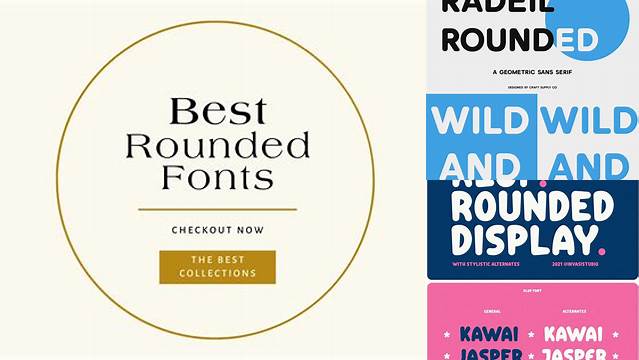
Rounded Free Fonts: Your Guide To Friendly Design
Are you, designers, on the hunt for the perfect fonts to add a touch of warmth, friendliness, and approachability to your projects? Look no further! Rounded free fonts are the unsung heroes of the design world, offering a delightful blend of style and readability. From websites to logos, and everything in between, these fonts can instantly elevate your visual communication. In this comprehensive guide, we'll dive deep into the world of rounded fonts, exploring their benefits, showcasing some of the best free options available, and offering tips on how to use them effectively. So, let's get started and unlock the potential of these versatile font styles, shall we?
The Allure of Rounded Fonts: Why Choose Them?
Rounded fonts are characterized by their soft, curved letterforms, as the name suggests. Unlike their sharp-edged counterparts, these fonts create a sense of comfort and ease for the viewer. This makes them ideal for a wide range of applications, from branding to user interface design. Think about it: what kind of message do you want to send? A bold, angular font might convey strength and authority, while a rounded font whispers of friendliness and approachability. This is one of the main reasons why so many designers are drawn to these styles. But why choose them? Well, several key advantages make rounded fonts a popular choice.
First and foremost, rounded fonts exude a sense of friendliness and approachability. The gentle curves of the letters create a welcoming feel, making them perfect for brands that want to connect with their audience on a more personal level. This is particularly effective for industries like healthcare, education, and childcare, where a warm and reassuring tone is crucial. Imagine a children's book with a harsh, angular font – it just wouldn't feel right, would it? This inherent charm is what attracts so many to these styles. Moreover, rounded fonts are highly readable, especially in larger sizes. The curves and open letterforms make it easy for the eye to follow the text, reducing strain and improving the overall reading experience. This is especially important for website design, where users often scan content quickly. The improved readability of rounded free fonts can significantly impact the user experience, making your content more engaging and accessible.
Another significant advantage is their versatility. Rounded free fonts can be adapted to a variety of design styles, from minimalist to playful. They work well in both headlines and body text, offering flexibility in how you use them. This adaptability makes them a go-to choice for designers working on diverse projects. Furthermore, the availability of free rounded fonts allows designers to experiment without breaking the bank. Many high-quality options are available, making it easy to find the perfect font to match your project's needs. Let's not forget that these fonts can also evoke a sense of modernity and cleanliness. The simplicity of their forms often leads to a sleek and contemporary look, perfect for brands that want to stay up-to-date with current design trends. In short, rounded free fonts offer a compelling combination of aesthetics, readability, and versatility, making them a valuable asset in any designer's toolkit.
Top Free Rounded Fonts to Elevate Your Designs
Now that you understand the appeal of rounded fonts, guys, let's explore some of the best free rounded fonts available. These fonts are carefully selected for their quality, versatility, and the value they bring to your design projects. From elegant sans-serifs to playful display fonts, there's something for everyone on this list. We'll delve into what makes each font unique, where to find them, and how they can enhance your work. Get ready to discover some amazing options to add that special touch to your designs. These rounded fonts not only look good but also offer the technical features you need for a smooth and professional design workflow. You'll find these are great for everything from websites and logos to print materials and social media graphics.
1. Montserrat
Montserrat is a classic choice for many designers. Inspired by the architecture of the Montserrat neighborhood in Buenos Aires, this font family offers a clean and modern aesthetic. Its geometric shapes and slightly rounded terminals create a sense of balance and harmony. Its versatility makes it perfect for both headings and body text. The wide range of weights and styles available allows for extensive customization. You can use it for everything from websites and apps to print materials. The font is available in numerous weights, from thin to black, ensuring you have plenty of options. It supports a wide variety of languages, making it a globally accessible choice. Its clean and modern look makes it a popular option for many different brands. Montserrat is known for its excellent readability and visual appeal, and it is a go-to font for many designers.
2. Lato
Lato is another popular option, known for its friendly and approachable appearance. Designed by Łukasz Dziedzic, this sans-serif font strikes a perfect balance between elegance and playfulness. Its slightly rounded corners and open letterforms make it highly readable on screens of all sizes. Lato's design is characterized by its warm and welcoming feel. Its wide range of weights, including light, regular, and bold, give designers flexibility in various applications. This font is available in multiple weights and styles. The design is clean and simple, making it ideal for a wide range of uses. Lato is a great choice if you are looking for a versatile and easy-to-read font for both headings and body text. This font can elevate the overall look of any project.
3. Open Sans
Open Sans is a humanist sans-serif font designed by Steve Matteson. It's a highly readable font with a friendly appearance, making it suitable for a wide range of design projects. With its open letterforms and clean lines, Open Sans excels in both digital and print applications. This font is optimized for readability, making it a great choice for long-form content. The font has a neutral design that ensures it doesn't clash with other design elements. Open Sans is highly versatile and can be used in a variety of contexts. You'll get a great sense of readability, making this font a safe and smart option. It is very popular, mainly due to its readability, and is also very accessible to use.
4. Nunito
Nunito is a well-balanced sans-serif typeface created by Vernon Adams. This font combines rounded terminals with a high x-height, creating a sense of warmth and approachability. Nunito is very readable and adds a touch of sophistication to any design. It is available in multiple weights, including regular, bold, and italic. The design is clean and easy to read, making it great for body text. It's a versatile option, perfect for branding, websites, and print projects. Nunito is known for its elegant look, which is ideal for a variety of design projects. You'll find that it looks good on different screens and has a solid and modern look and feel.
5. Poppins
Poppins is a geometric sans-serif font designed by Indian Type Foundry. It is a versatile font that is very popular among designers. It's characterized by its simple and clean design, making it a solid choice for both headings and body text. The rounded corners of the letters give it a friendly and approachable feel. It is ideal for use in web design, branding, and print projects. The font is highly readable and adaptable to different contexts. Poppins is very accessible due to its high availability of weights. Its geometric design combined with soft curves gives it a unique personality. This font ensures that your text is easy to read and visually appealing.
How to Use Rounded Free Fonts Effectively
Using rounded free fonts effectively requires a bit of finesse and understanding of design principles. These fonts can enhance your designs, but only if used correctly. Let's dive into some best practices to ensure you get the most out of these versatile font styles. With these tips, you can maximize the impact of rounded fonts and create designs that resonate with your audience. Following these steps helps to ensure your text is both beautiful and easy to read, and that it perfectly conveys the message you want.
1. Choose the Right Font for the Project
Selecting the perfect font is critical for any project. Consider the overall tone and message you want to convey. A playful rounded font might be great for a children's website, but it might not be the best choice for a corporate report. Think about your target audience and what kind of aesthetic will appeal to them. If you're working on a branding project, the font you choose will become a key part of your brand's identity, so make sure it aligns with your values and goals. You should always test out different fonts before making a final decision, testing the text in different sizes and weights. This ensures that the font works well in various contexts and looks the way you want it to. It’s crucial to choose a font that enhances your design, not distracts from it. Choosing the right font helps you avoid any pitfalls and increases your chances of a successful outcome.
2. Pair Fonts Thoughtfully
Font pairing is an art form. Avoid using too many different fonts in a single design, as this can make it look cluttered and unprofessional. Stick to two or three fonts at most, and make sure they complement each other. When pairing a rounded font, consider using a contrasting font for headings or subheadings. For example, you could pair a soft, rounded font for body text with a clean, geometric sans-serif for headings. This will create visual interest and hierarchy. Test your font pairings on different devices and screen sizes to ensure readability and consistency. It's important to ensure that the font pairings enhance the design without clashing with each other. A well-chosen pairing ensures your design looks polished and cohesive, improving the overall user experience.
3. Consider Readability and Hierarchy
Readability is paramount, especially when it comes to body text. Choose fonts that are easy to read at the intended size. Use sufficient line spacing and kerning to improve legibility. Ensure a good contrast between the text and the background. Consider the weight and size of your font. Use bolder fonts for headings and subheadings to create a clear visual hierarchy. This helps guide the reader's eye and makes the content easier to digest. Test your design on different devices and screen sizes to ensure that your text is always readable and the hierarchy is clear. Keep readability in mind, as this is key to a positive user experience. Maintaining the readability and hierarchy improves content and is a key factor to keeping your visitors engaged.
4. Pay Attention to Spacing and Kerning
Spacing and kerning can make or break a design. Pay close attention to the space between letters (kerning) and lines (leading). Adjust these settings to optimize readability and visual appeal. Incorrect spacing can make the text look cramped or disjointed. Some fonts might require more or less kerning than others, so experiment to find what works best. In this case, it is important to keep spacing and kerning in mind to create a good look for any font. Poor spacing and kerning can create a negative experience for users. Proper spacing and kerning can make a huge difference to the readability of the text.
5. Test and Iterate
Testing and iteration are crucial steps in any design process. Always test your designs on different devices and in different contexts. Get feedback from others to see if the text is readable and the overall design is appealing. Be prepared to make adjustments based on feedback and your own observations. Testing helps identify and fix any potential problems with your design. Iteration is the key to perfection. This is how you will be able to refine and improve your design until you get the perfect result. Remember that the design process is iterative, meaning that you can expect to make changes along the way, ensuring that you produce a high-quality end result.
Conclusion: Embrace the Rounded Revolution
In conclusion, rounded free fonts are a valuable asset for any designer. Their friendly appearance, readability, and versatility make them an excellent choice for a wide range of projects. By understanding their strengths and following the tips outlined in this guide, you can harness the power of rounded fonts to create visually appealing and effective designs. From choosing the right font for your project to pairing fonts thoughtfully and considering readability, spacing, and kerning, the secrets to successful use of rounded fonts are now at your fingertips. So, guys, go forth and explore the world of rounded fonts. Experiment with different styles, and discover how these fonts can elevate your design work. Embrace the rounded revolution and add a touch of warmth and approachability to your projects!